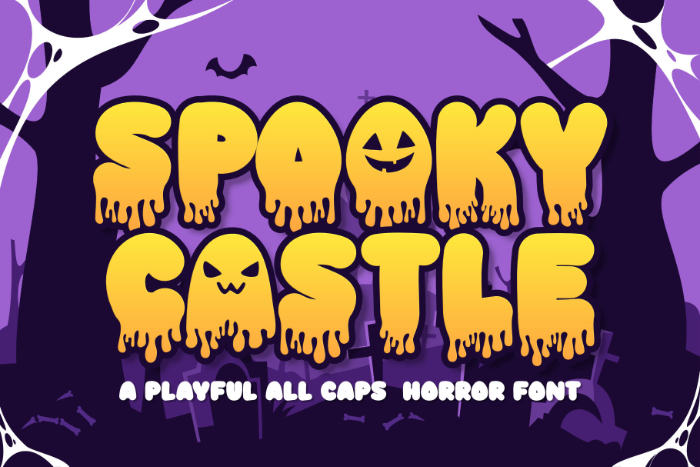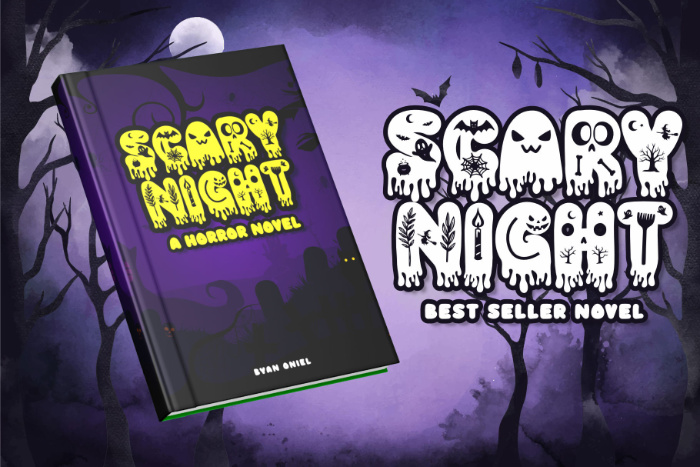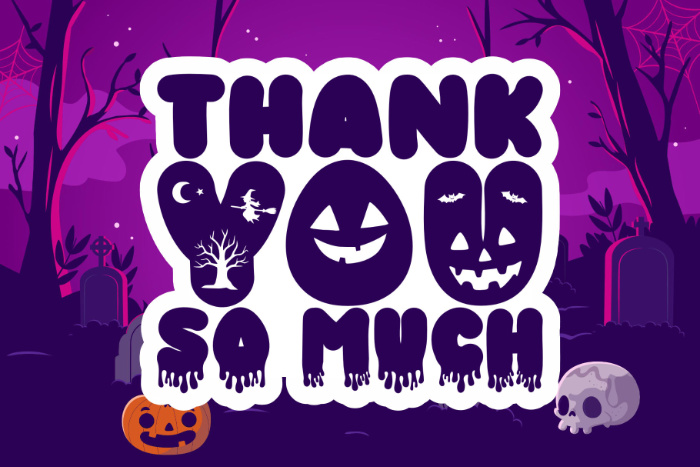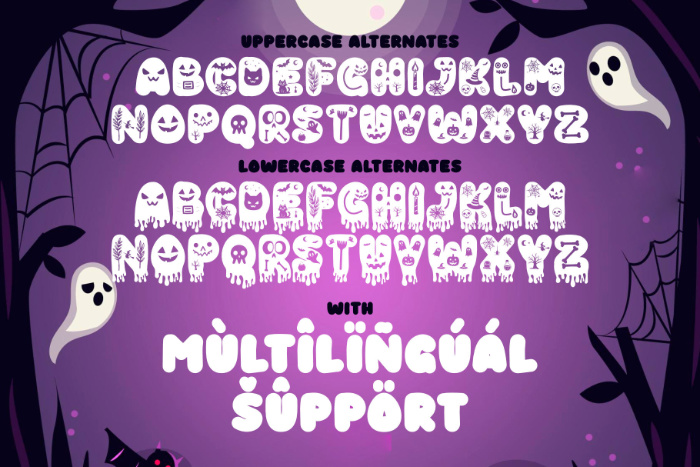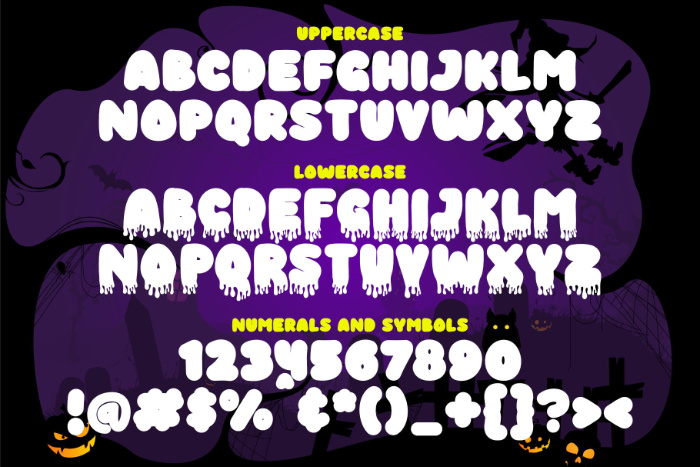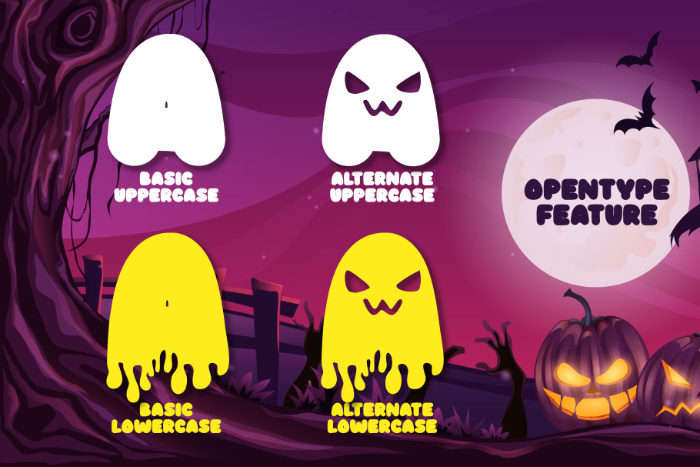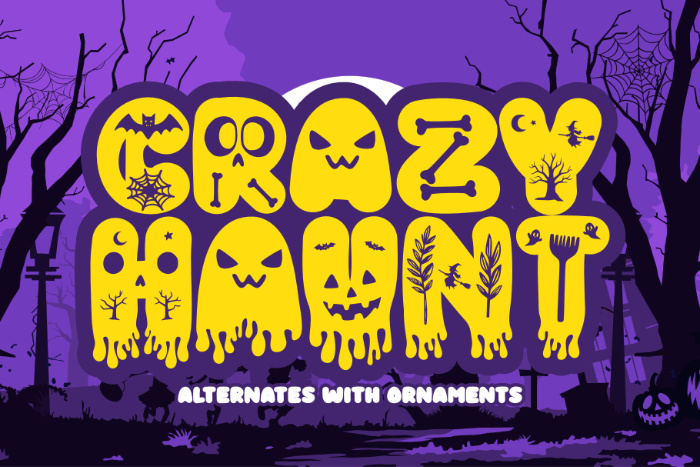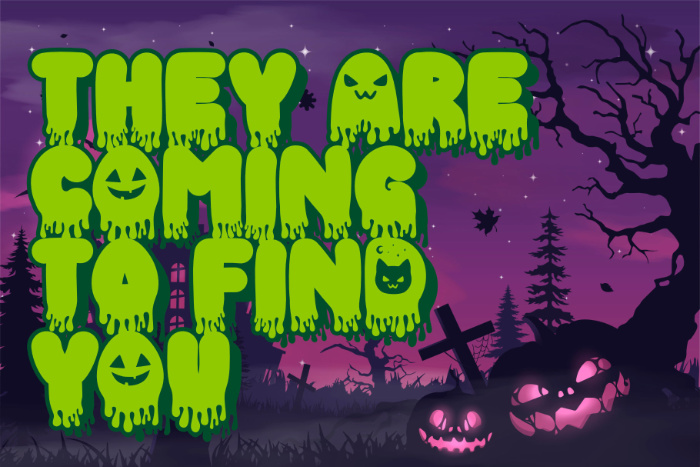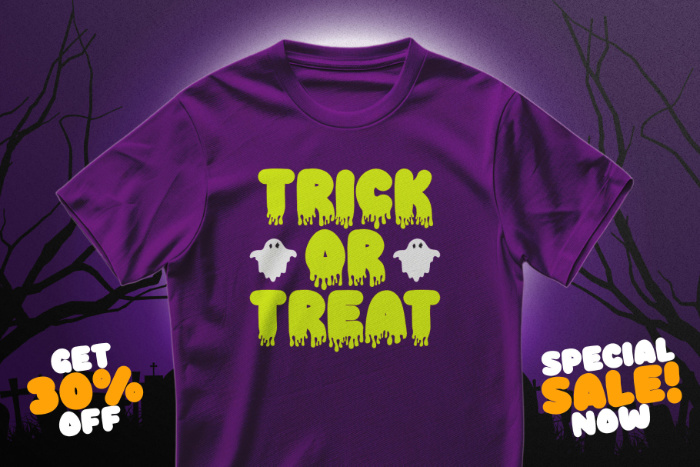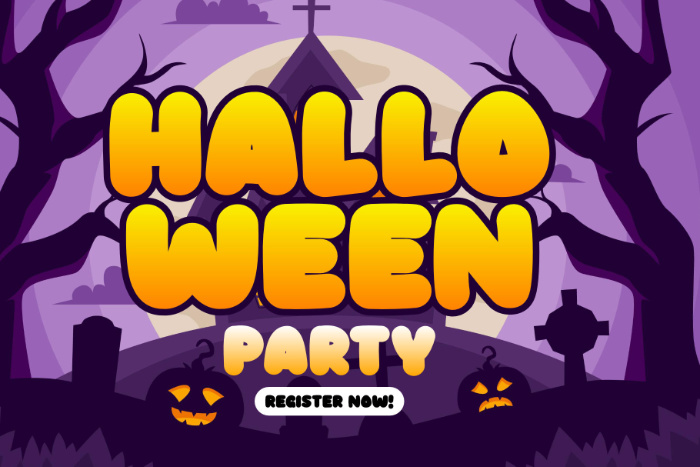
Meet Spooky Castle, the ultimate all-caps display font designed for horror that doesn’t take itself too seriously. Bold, sharp, and irresistibly creepy, this font is meticulously crafted for high-impact use in Halloween, horror design, and gothic-themed branding.
It comes loaded with three powerful variants to cover all your spooky needs. Start with the strong, clean lines of the Regular style. Amp up the fear with the Dripped style, featuring a gruesome, dripping texture perfect for that authentic scary movie look. Finally, the Ornamental style adds a flourish of antique terror, ideal for elegant, haunting headers.
With Spooky Castle, your posters, logos, merchandise, and digital assets won’t just stand out; they’ll cast a spell. It’s the essential typeface for bringing your darkest, most playful concepts to life!